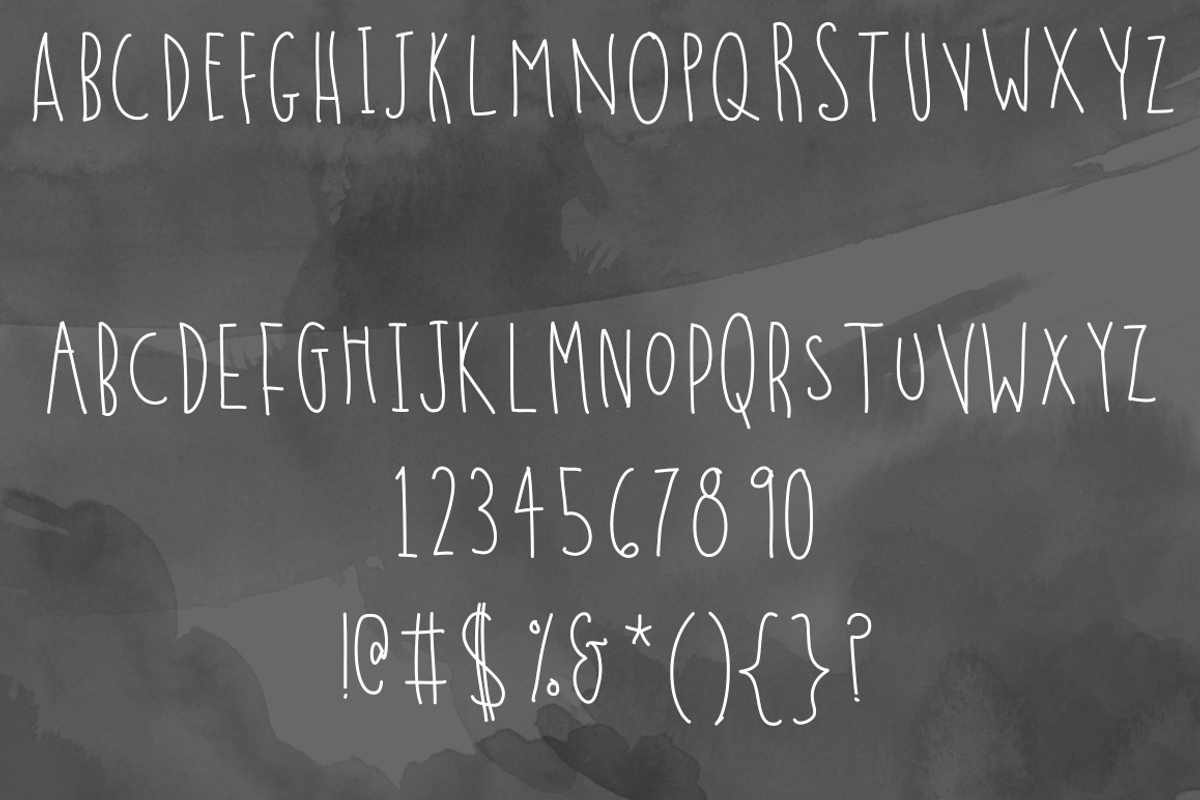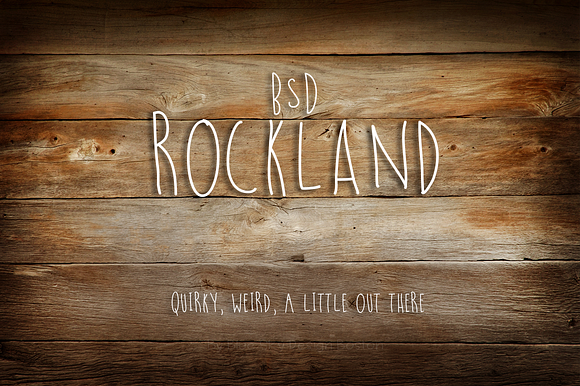
BSD Rockland Handwritten Font
BSD Rockland is a quirky, awkward, handwritten font.
Caps are a variation with slight differences.
Put a little weird in your work!